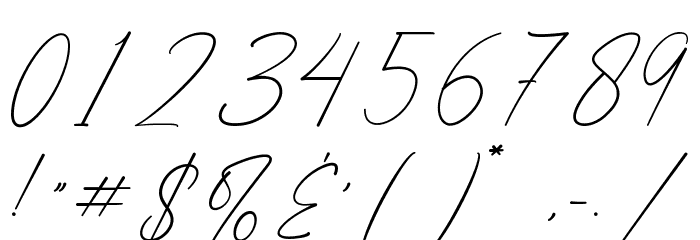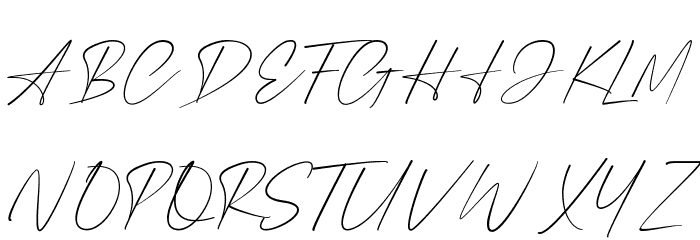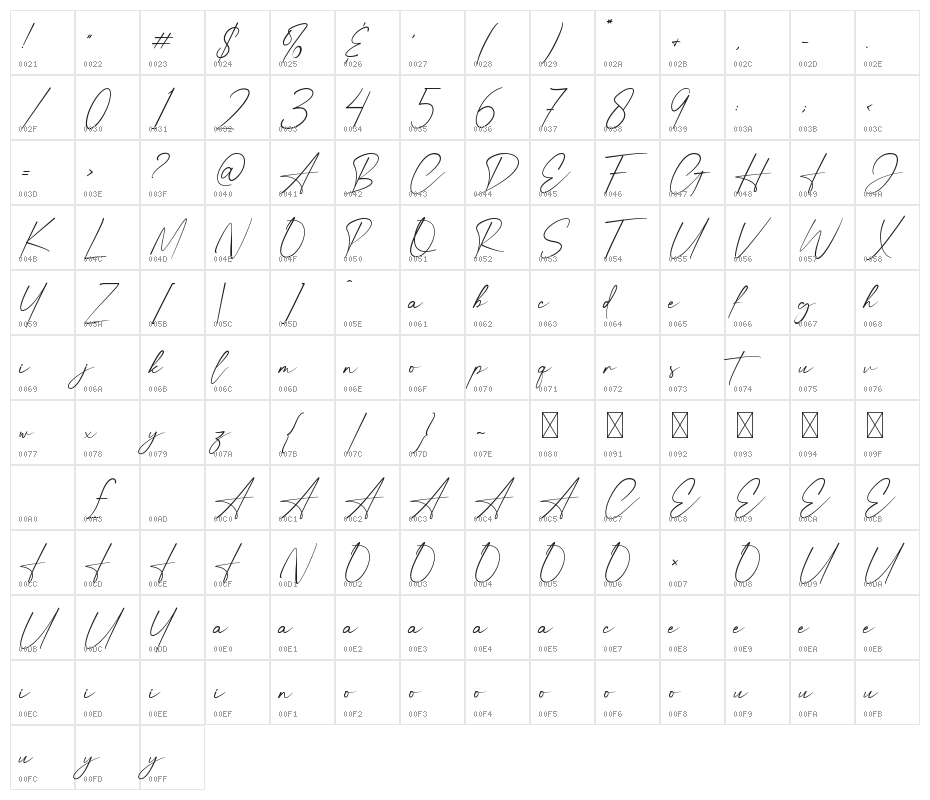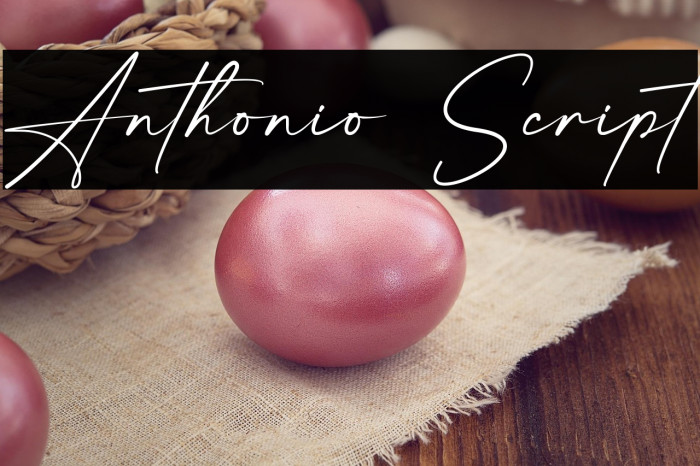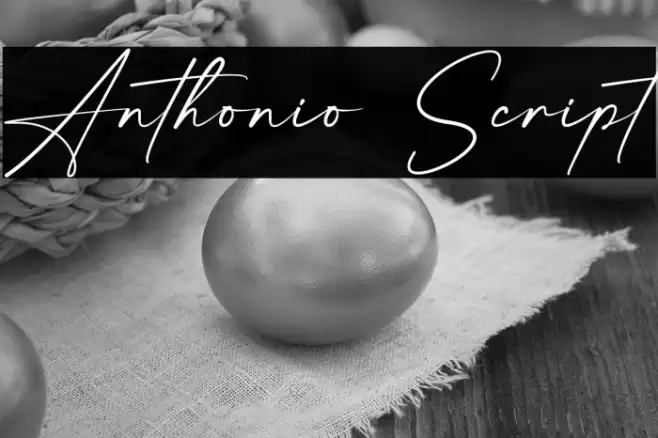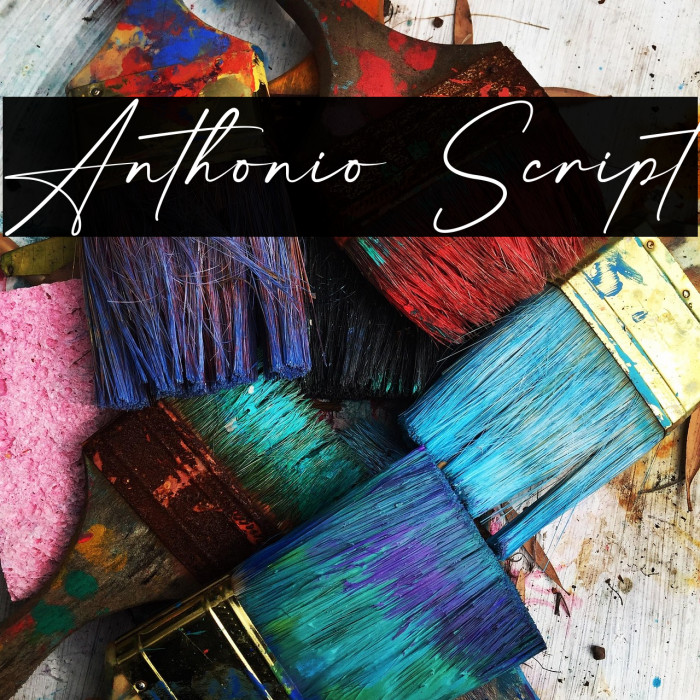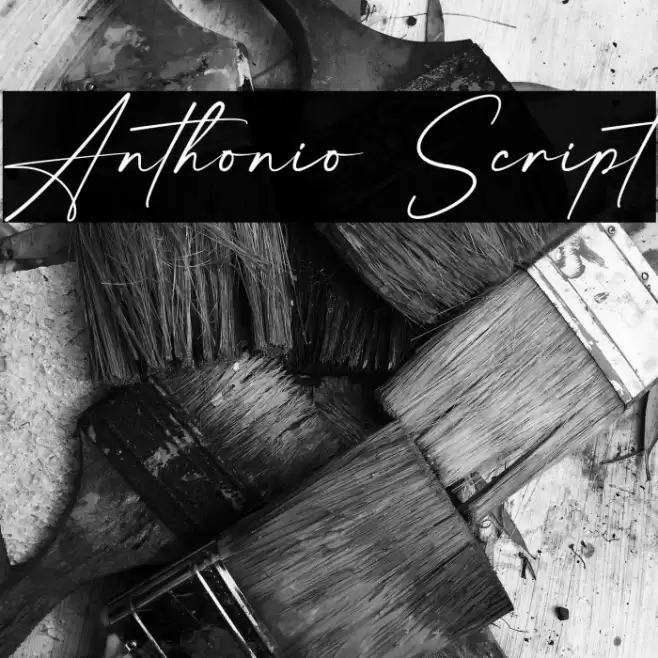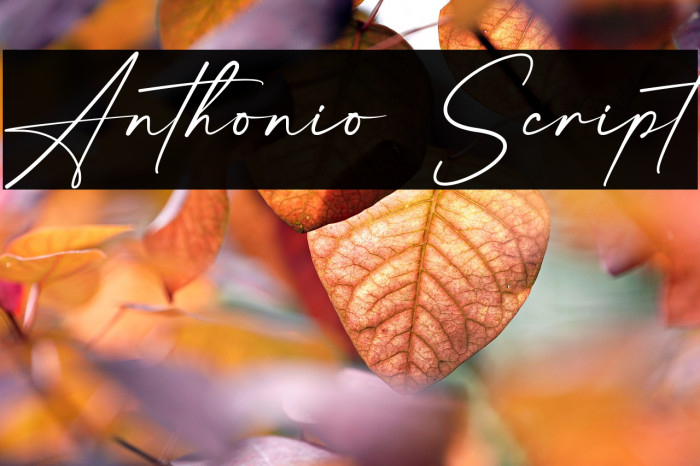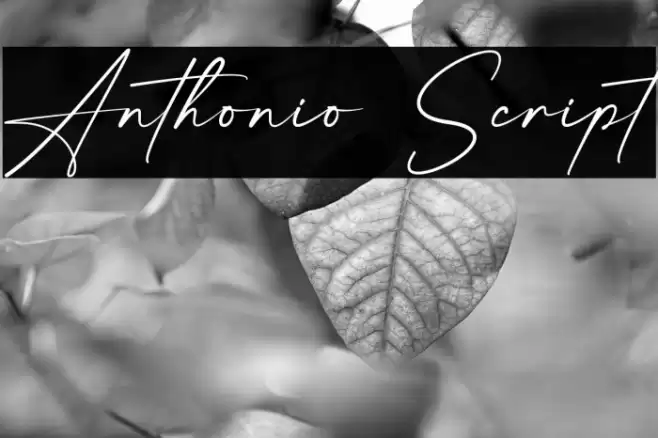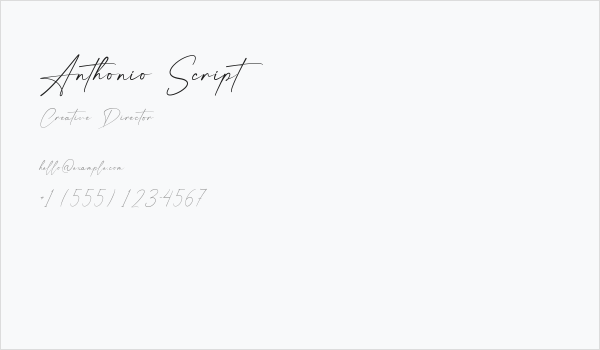
Anthonio Script Font
Anthonio Script Description
This elegant script font features a flowing, cursive style that exudes sophistication and grace. The uppercase letters are tall and slender, with delicate loops and swashes that add a touch of flair. The lowercase letters are more compact, maintaining a consistent fluidity that complements the uppercase characters. Numbers and special characters are designed with the same attention to detail, ensuring a cohesive look across all elements. The font's thin strokes and gentle curves make it ideal for projects that require a personal, handwritten touch.
| Use Case | Logos, Invitations, Personal stationery |
| Proposed Projects | Ideal for wedding invitations, greeting cards, elegant branding, and personal stationery. |